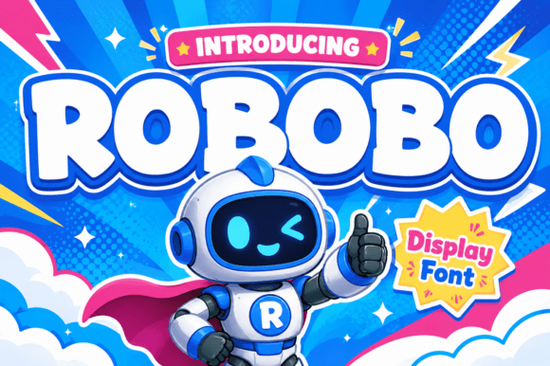
If you're looking for a bold, playful typeface that works beautifully for kids' products, packaging, and fun branding, Robobo is worth a closer look. This bubbly display font has thick, rounded letterforms and a cartoon-like personality that instantly adds warmth and energy to any design. Whether you sell print-on-demand products, design posters for local events, or create educational worksheets, this chunky typeface brings a friendly, approachable vibe to your work.
What Makes the Robobo Font Stand Out?
Plenty of display fonts aim for a playful look, but Robobo nails the balance between boldness and charm. Its generously rounded edges and oversized curves give every letter a soft, huggable feel. At the same time, the thick linework keeps everything readable and visually strong, even at larger sizes.
Unlike overly ornate or complicated typefaces, Robobo stays clean. You won't struggle with legibility on packaging labels or poster headers. The letter shapes are simple enough to read quickly but have enough personality to hold attention.
Where Does This Font Work Best?
Robobo is a natural fit for projects that need to feel fun, youthful, and inviting. Here are some popular uses:
- Children's book covers and chapter headings
- Toy packaging and product wrappers
- Comic-style illustrations and speech bubbles
- Educational materials like flashcards and worksheets
- Party invitations and event posters
- Logo designs for kid-focused brands or playful businesses
- Print-on-demand products like t-shirts, mugs, and stickers
If you run a POD shop on Etsy or Redbubble, a font like Robobo can help you create eye-catching designs that stand out in crowded marketplaces. Pair it with bright colors and simple illustrations, and you have a winning combination for holiday-themed designs or everyday kids' merchandise.
How Does It Compare to Similar Playful Fonts?
Creative Fabrica offers several display fonts in this style. If you like Robobo's rounded, chunky look, you might also want to explore Chonkster, which leans into a heavier, more exaggerated weight. For something with a slightly different personality, Unibelle offers its own take on a bubbly display style.
Each of these fonts has its own strengths, but Robobo's versatility is a real advantage. It works just as well on a birthday party banner as it does on a professional brand logo aimed at families or children.
What Fonts Pair Well with Robobo?
A chunky display font like this works best for headlines, titles, and short phrases. For body text or longer paragraphs, pair it with a clean sans-serif or a simple serif font. This contrast keeps your designs balanced and easy to read.
Some pairing ideas:
- Robobo + a light sans-serif Great for posters and flyers where you need a fun header and readable body copy.
- Robobo + a handwritten script Works well for greeting cards and party invitations, adding a personal, crafty touch.
- Robobo + a monospace font An unexpected combo that can look fresh and modern on digital designs or social media graphics.
If you're building a seasonal collection, Robobo pairs nicely with themed fonts like Spookify for Halloween projects or Santa Sugar for Christmas designs. Mixing a year-round playful font with seasonal options gives your shop more variety throughout the year.
Is This a Good Choice for Small Business Branding?
Absolutely if your brand targets families, kids, or a playful audience. A bakery that specializes in children's birthday cakes, a daycare center, a kids' clothing line, or a toy shop could all use Robobo as part of their visual identity. The font's rounded, friendly shapes communicate approachability and fun without looking unprofessional.
That said, it's important to match the font to your audience. Robobo wouldn't be the right choice for a law firm or a luxury jewelry brand. But for businesses that want to feel warm, energetic, and kid-friendly, it's a strong option.